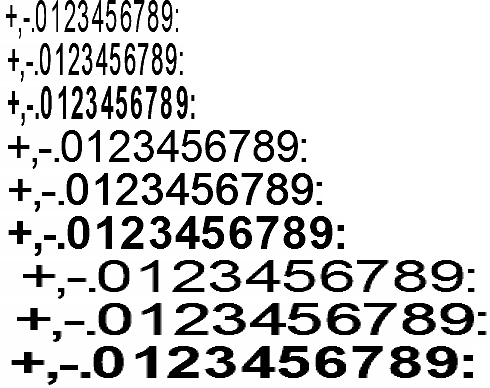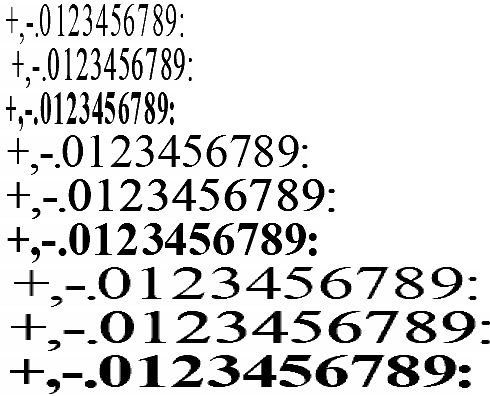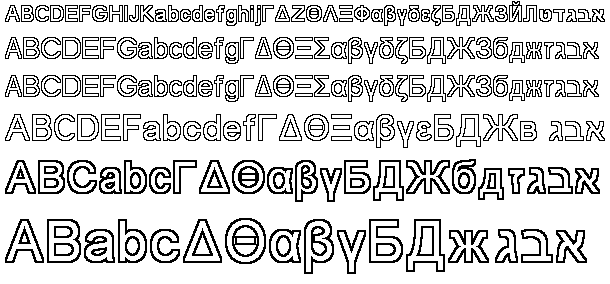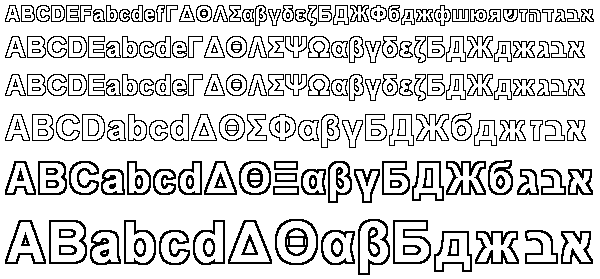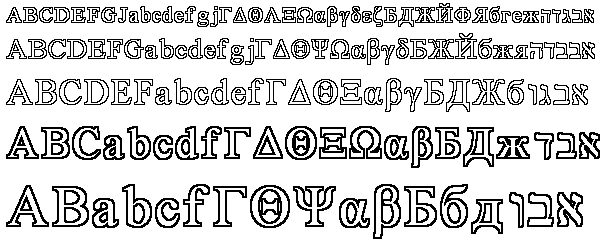
The Unicode European Font Library in C source code
The Unicode European font library is included in the IconEdit package.
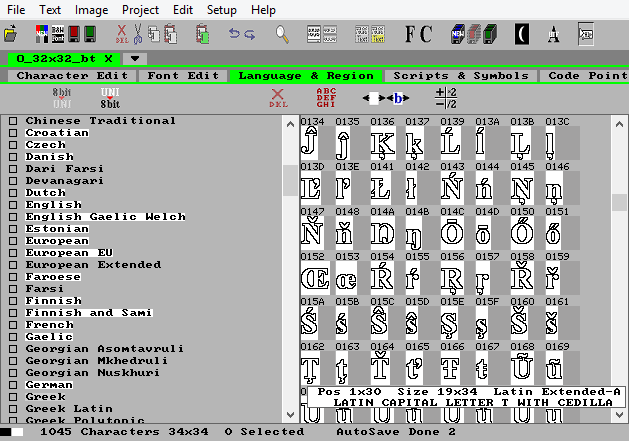
Black&White and Grey Intensity Level C-source code 16 bit Unicode font library.
European and Middle-Eastern languages plus Vietnamese.
Symbols and Large Numbers.
Windows and ISO-8859 8 bit fonts.
European Font Library Introduction
Together with the Asian font library the European font library covers most of the World:
The Font Library has Latin, Cyrillic, and Greek characters to cover all of Europe, and South and North America, Latin characters for Vietnam, plus Hebrew characters and Arabic with presentation characters for the Middle East.
The Font Library has a group of Unicode fonts with Currency, Symbols for Widgets, Arrows, Icons, and Emoji:
The Font Library has separate fonts with large numbers in a variaty of shapes:
All characters in the font are encoded in this general C source code format:
Save start-up time by using existing to C-source code pixel based fonts for your embedded systems.
Start working with your prototype before you make your own fonts.
The Font Library content
The font library is for European and Middle-Eastern languages.
The font library contains characters for the following languages and regions:
- Albanian, American, Arabic, Australian, Azerbaijani
- Belarusian, Belgian, Bosnian, Brazilian, Bulgarian
- Canadian, Croatian, Czech
- Danish, Dari, Dutch
- English, Estonian
- Faroese, Farsi, Finnish, French
- Gaelic, German, Greek
- Hebrew, Hungarian
- Icelandic, Irish, Italian
- Kazakh, Kyrgyz
- Latvian, Lithuanian, Luxembourgish
- Macedonian, Maltese, Magyar, Maori
- Norwegian
- Persian, Polish, Portuguese
- Romanian, Russian
- Sami, Serbian, Slovak, Slovenian, Spanish, Swedish, Swiss
- Tatar, Turkish
- Ukrainian, Urdu, Uzbek
- Vietnamese
- Welsh.
The Arial, Light, Roboto, and Times font groups cover all the listed languages according to Unicode, the other font groups have various subsets.
The font library has Black&White and Grey Intensity Level C-source code raster fonts (pixel fonts or bitmap fonts) for 16-bit and 32-bit Unicode and classic 8-bit Windows and 8-bit ISO-8859 character encoding.
The Font Look
Arial
Arial Normal
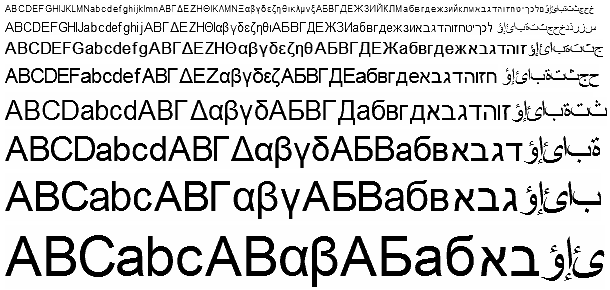
Arial Bold
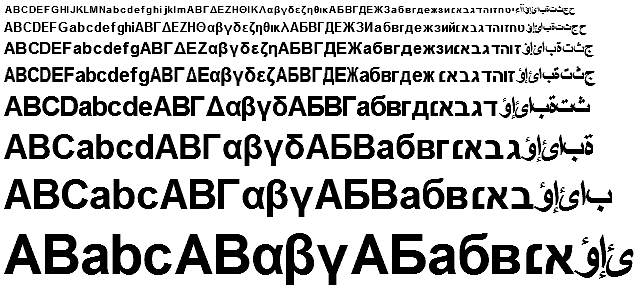
Arial Normal & Arial Bold are sans-serif variants of the same proportional characters.
The Arial, Light, Roboto & Times fonts are interchangeable in the meaning that the same Unicode character exist in the same size both as Black&White and Grey Intensity Level and with sans-serif and serif look.
The Arial Normal and Arial Bold fonts comes as both Black&White and Grey Intensity Level C-source code.
Coverage: Latin, Greek, Cyrillic, Vietnamese, Hebrew, and Arabic as defined in Unicode. Each font contains 1061 characters.
Size range: B&W Height 12, 16, 24, 32, 40, 48, 64, 96, 128, 192 and 256 pixels, Grey Height 12, 16, 20, 24, 32, 40, 48, and 64 pixels.
Light
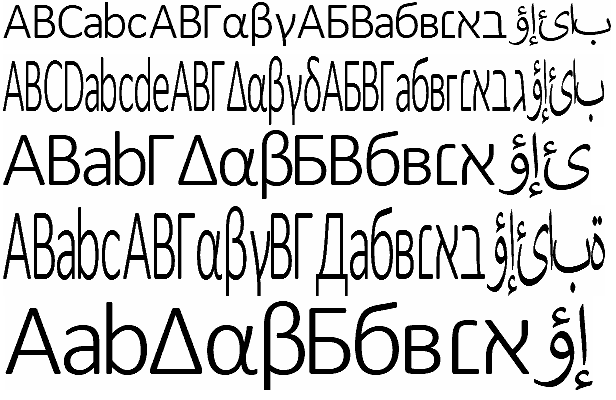
The Arial, Light, Roboto & Times fonts are interchangeable in the meaning that the same Unicode character exist in the same size both as Black&White and Grey Intensity Level and with sans-serif and serif look.
The Light fonts comes as both Black&White and Grey Intensity Level C-source code.
Coverage: Latin, Greek, Cyrillic, Vietnamese, Hebrew, and Arabic as defined in Unicode. Each font contains 1061 characters.
Size range: B&W Height 24, 32, 40, 48, 64, 96, 128, 192 and 256 pixels, Grey Height 12, 16, 20, 24, 32, 40, 48, 64, 96, and 128 pixels.
Numbers
Numbers Sizes
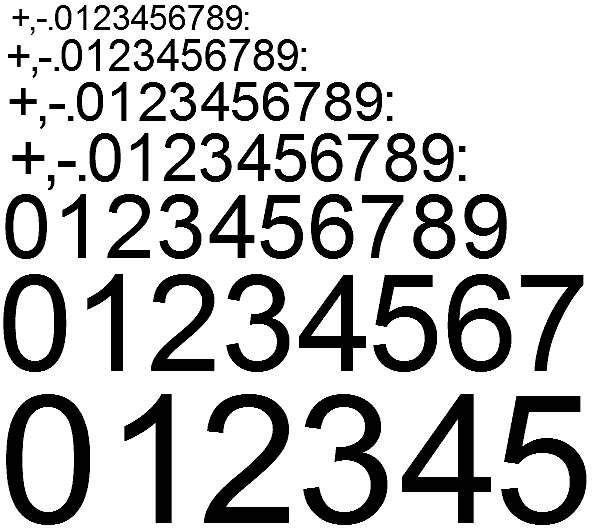
Size range: B&W has 9 different Looks each with Height 24, 32, 40, 48, 64, 96, 128, 192, 256, 384 and 512 pixels, Grey has 21 different Looks each with Height 24, 32, 40, 48, 64, 96, and 128 pixels.
The character symbols are moved to their Windows 8-bit character values to make the 10 classic 8-bit Windows fonts:
- W-0874-Th Thai.
- W-1250-CE Central European.
- W-1251-Cyr Cyrillic.
- W-1252-WE Western European.
- W-1253-Gre Greek.
- W-1254-Tur Turkish.
- W-1255-Heb Hebrew.
- W-1256-Arb Arabic.
- W-1257-Bal Baltic.
- W-1258-Vie Vietnamese.
Coverage: Latin, Greek, Cyrillic, Hebrew, Vietnamese, and Arabic and Thai Basic Characters.
Size range: Height 10 to 32 pixels.